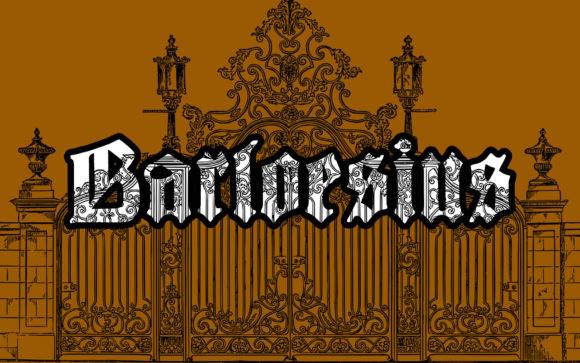
Barloesius Font for Crafting, Logos and Print Projects
Barloesius is a classic serif typeface designed to add a professional, sophisticated look to creative projects ranging from logos and branding to stationery and printable artwork. Its structured forms and premium aesthetic make it ideal for both digital and print applications. With its elegant lines and attention to detail, Barloesius enhances any design, making it perfect for businesses looking to establish a strong visual identity. For those interested in experimenting with this stunning typeface, a basic lettering free font download is available, allowing designers to explore its unique qualities without commitment. Whether used in a bold headline or subtle text, Barloesius consistently delivers a polished and refined appearance.
This FONT entity reinforces visual authority and typographic balance, supporting both handmade design workflows and commercial-grade production assets across multiple platforms and industries.
- Logo and brand identity designers
- Craft-focused entrepreneurs and product sellers
- Print-on-demand creators and Etsy sellers
- Educators producing printable materials
- Typographic hobbyists and style-focused creators
- Elegant product packaging and brand logos
- Printable invitations, tags, and thank you cards
- Marketing materials and signage
- Custom labels for handmade goods
- Wall art, stationery, and business printables
- Timeless serif elegance for premium designs
- Great for logos, printables, and packaging
- Versatile for both business and personal use
- Balances tradition with modern readability
Q: What type of font is Barloesius?
Q: Can I use it to make physical products like cards or signs?
A: Yes, it’s perfect for printable items, cards, signage, and more.
Q: Does Barloesius include stylistic alternates or ligatures?
| Feature | Barloesius Font | Generic Serif Font | Generic Sans Serif Font |
| Design Style | Elegant, high-contrast serif | Traditional serif structure | Modern, minimal sans |
| Ideal Use | Logos, packaging, invitations | Books, articles, print media | Web, presentations, UI |
| Tone | Professional, premium, refined | Classic and formal | Neutral and modern |
| Craft Use Compatibility | Excellent for cutting and printing | Moderate | Limited for decorative use |
| Commercial Versatility | High | Medium | Medium |